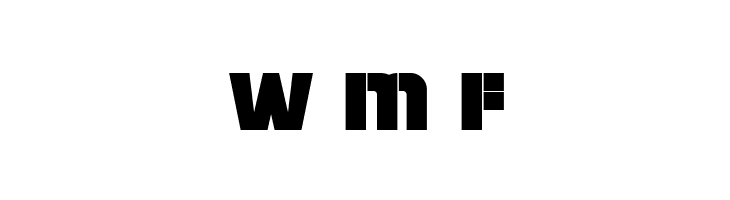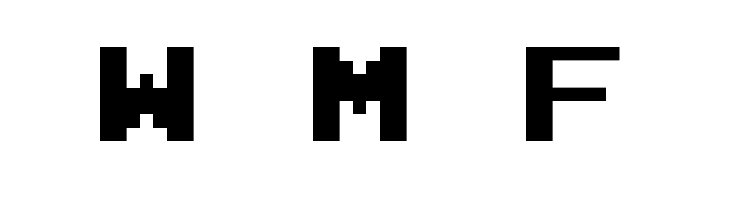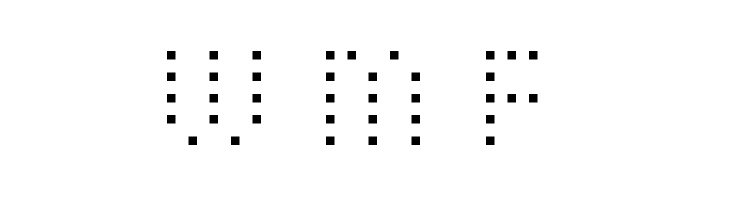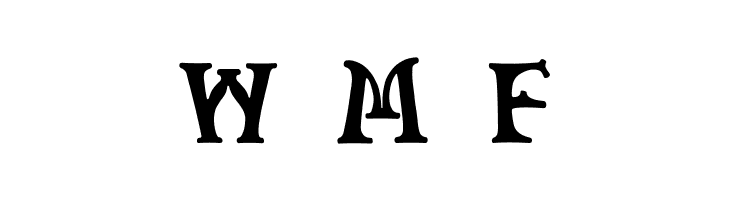
A pixelated, retro-style font inspired by early digital displays.
A bold, modern font with rounded edges and a tech-inspired design.
A dot matrix font with a retro, tech-inspired design.
Bold, blocky, playful display font with high contrast and mural-inspired shapes.
A bold, graffiti-inspired font with angular, geometric characters.
A bold, modern font with a digital, Y2K-inspired aesthetic.
A playful, comic-inspired font with bold, shaded letterforms.
A bold, graffiti-inspired font with a dynamic and energetic hand-drawn style.
A bold, gothic-style font with jagged edges and decorative flourishes, perfect for dramatic themes.
A decorative and artistic font with a medieval-inspired style.
A futuristic, tech-inspired font with dotted accents and bold geometric shapes.
A bold, gothic-inspired font with sharp, angular lines and a medieval flair.
A pixelated, dot-based font with a modern, tech-inspired style.
A bold, geometric font with a modern, digital-inspired design.
A bold, distressed font with a glitch-like effect, ideal for tech-inspired designs.
A bold, vintage-inspired font with thick, block-like characters and tight spacing.
A futuristic, geometric font with expanded letterforms and a tech-inspired design.
A bold, graffiti-inspired font with sharp, angular lines and dynamic shapes.
A bold, graffiti-inspired font with dynamic and energetic strokes.
Ornamental floral dingbat set with folk art influence.